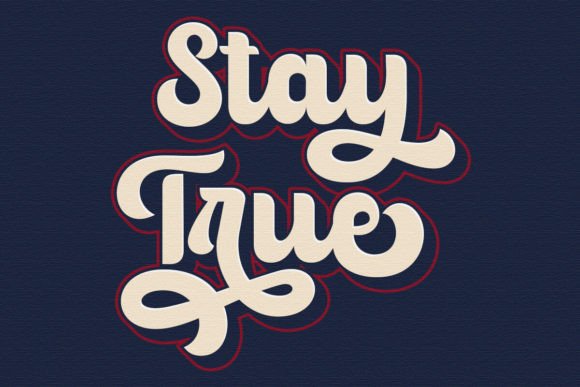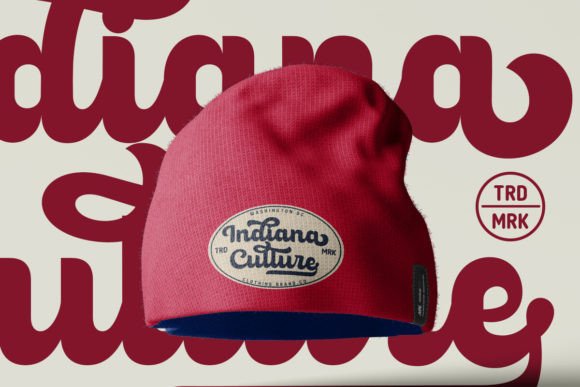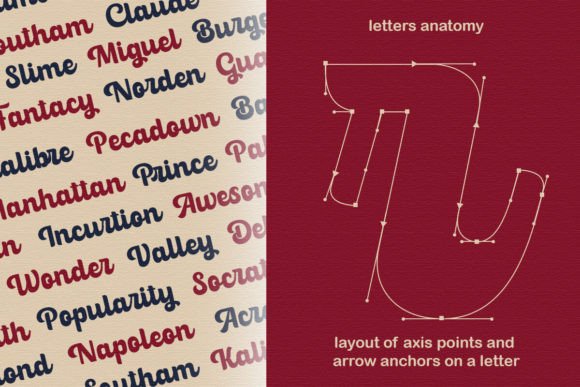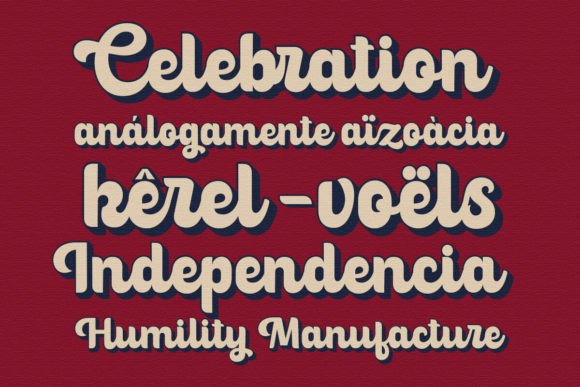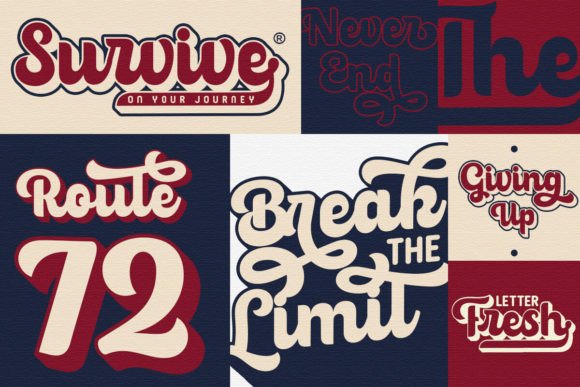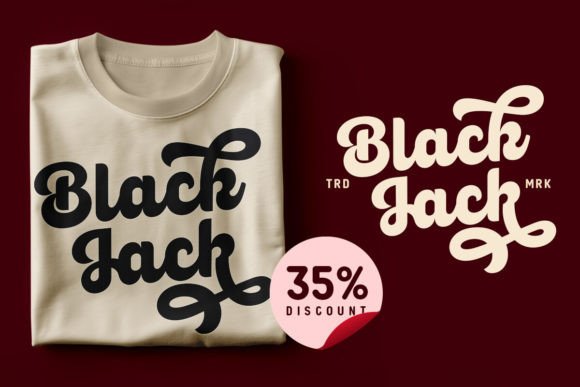
Introducing Certain: A Bold Retro Script to Transport You Back to the 60s
Are you a designer or crafter on the hunt for a font that embodies the spirit of the 1960s? Look no further than Certain, a bold retro script that’s sure to bring a touch of nostalgia to your projects. This versatile typeface boasts an extrude version, making it easy to create a retro effect font that’s perfect for a wide range of applications.
The Retro Charm of Certain
Certain is more than just a font – it’s a time machine. With its bold, playful lines and vintage flair, this script is guaranteed to transport you back to the groovy era of the 1960s. The extrude version of Certain takes the font to the next level, allowing you to create a retro effect that’s sure to turn heads. Whether you’re designing a logo, invitation, or packaging, Certain is the perfect choice for anyone looking to add a touch of retro charm to their project.
Endless Applications for Certain
One of the best things about Certain is its versatility. This font is suitable for a wide range of applications, including:
- Logos: Create a bold, eye-catching logo that’s sure to make your brand stand out.
- Invitations: Add a touch of elegance and sophistication to your invitations with Certain.
- Labels: Create custom labels that are perfect for products, gifts, or anything else you want to brand.
- Magazines and Books: Use Certain to add a pop of personality to your publication.
- Greeting and Wedding Cards: Make your cards truly special with this beautiful script font.
- Packaging: Add a touch of retro flair to your product packaging with Certain.
- Fashion and Makeup: Use Certain to create stunning branding and marketing materials for your fashion or makeup business.
- Stationery: Create custom stationery that’s perfect for personal or professional use.
- Novels and Other Written Works: Add a touch of personality to your book with Certain.
- Advertising: Use Certain to create eye-catching ads that are sure to grab attention.
Why Choose Certain?
So why choose Certain over other fonts? Here are just a few reasons why this bold retro script stands out:
- Unique and Eye-Catching: Certain is a one-of-a-kind font that’s sure to grab attention.
- Versatile: This font is suitable for a wide range of applications, from logos to packaging.
- Retro Charm: This font embodies the spirit of the 1960s, making it perfect for anyone looking to add a touch of nostalgia to their project.
Tips for Using Certain
To get the most out of Certain, here are a few tips to keep in mind:
- Experiment with Colors: Certain looks great in a variety of colors, so don’t be afraid to experiment and find the perfect hue for your project.
- Play with Pairings: Try pairing Certain with other fonts to create a unique and eye-catching combination.
- Use the Extrude Version: Take advantage of the extrude version of Certain to create a retro effect that’s sure to turn heads.
If you’re looking for a font that’s sure to transport you back to the 1960s, look no further than Certain. This bold retro script is perfect for designers and crafters who want to add a touch of nostalgia to their projects. With its versatility, ease of use, and retro charm, Certain is the perfect choice for anyone looking to create something truly special.